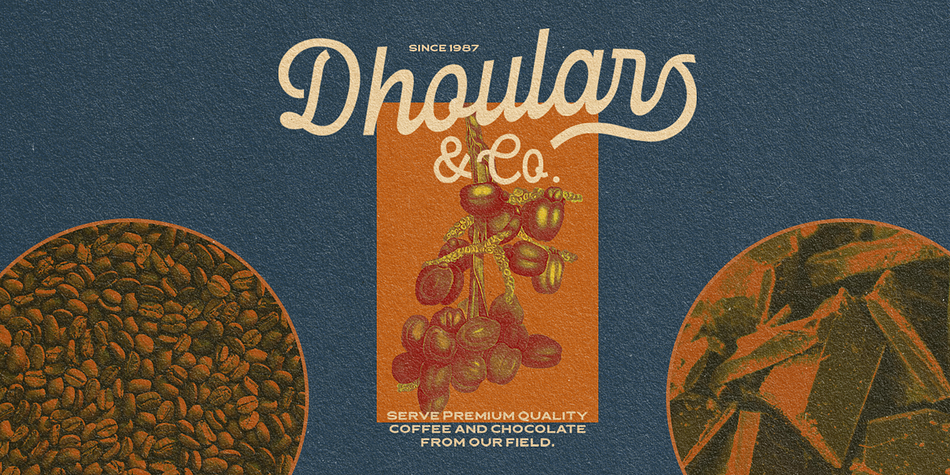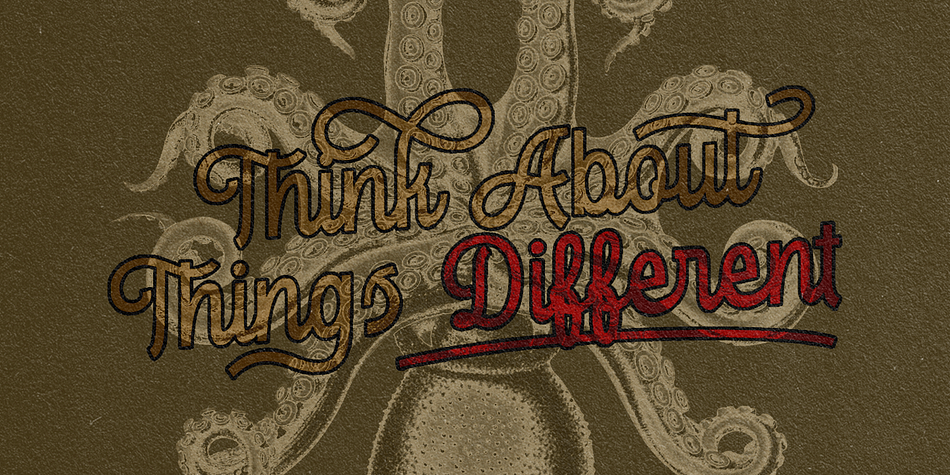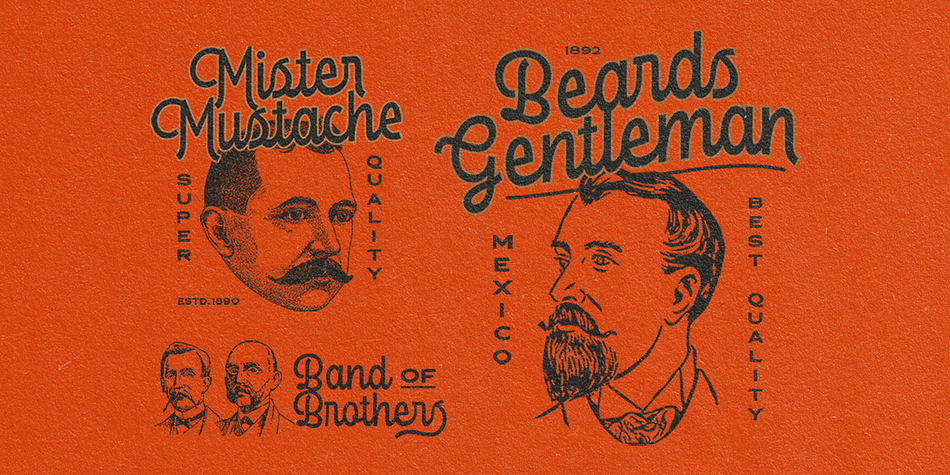
Londers
Designed by Hendry Juanda, Londers is a script font published by Letterhend Studio.
Introducing, Londers - a standout bold script with a touch of vintage look and feel. This type of font perfectly made to be applied especially in logo, headline, signage and the other various formal forms such as invitations, labels, logos, magazines, books, greeting / wedding cards, packaging, fashion, make up, stationery, novels, labels or any type of advertising purpose.
- Uppercase & lowercase
- numbers and punctuation
- multilingual
- alternates / swashes and ligatures